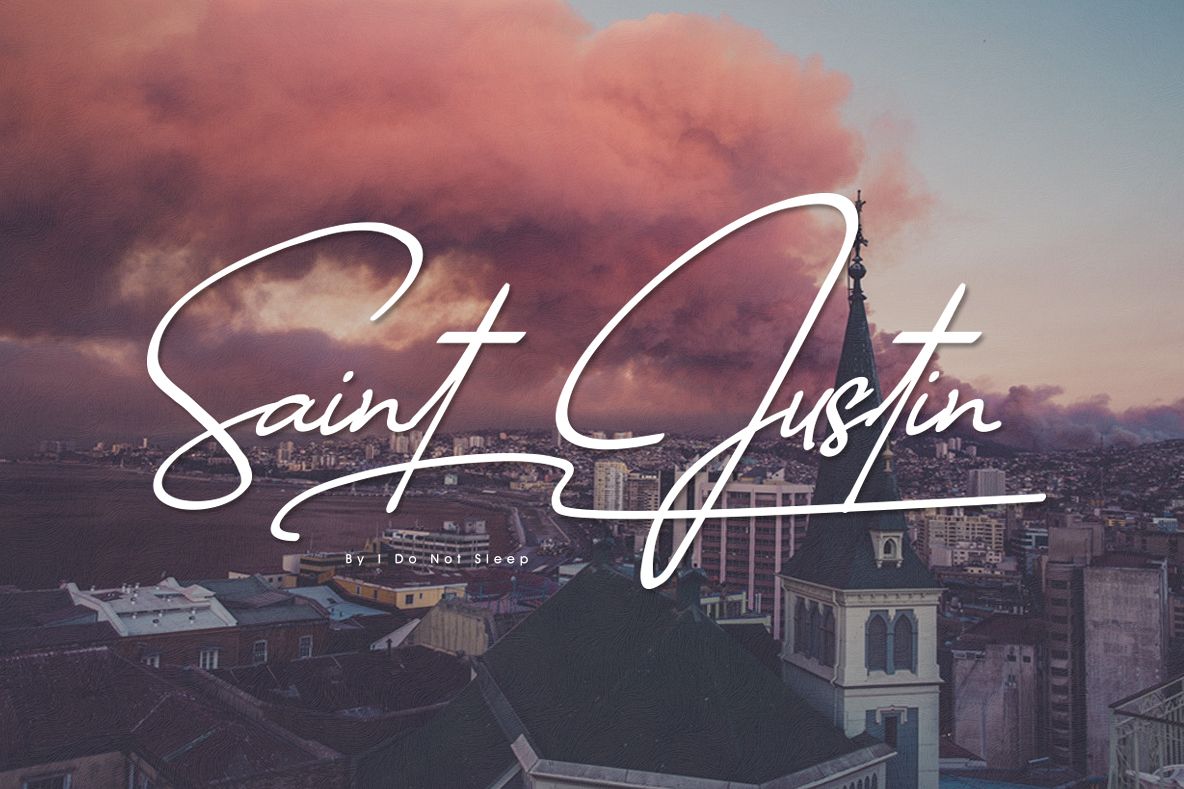
Saint Justin signature
I want to introduce our latest font product ” Saint Justin ”. Saint Justin is a signature font with a touch of elegant handwriting, looks very classy, modern, and unisex. Good for your logo watermark, brand logo, for wedding font, magazine font contain, signature and others, can be customized to your need. you can see in the preview as an example, looks expensive and classy. I believe we have the same perception. Saint Justine features full-featured regular, italic and swash versions, with the right ligature, an alternate font choice, and multilingual and extra swash bonuses to further enhance your logo look. I already show completely in the preview.